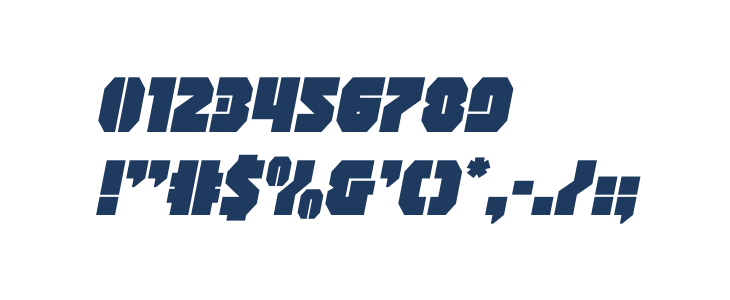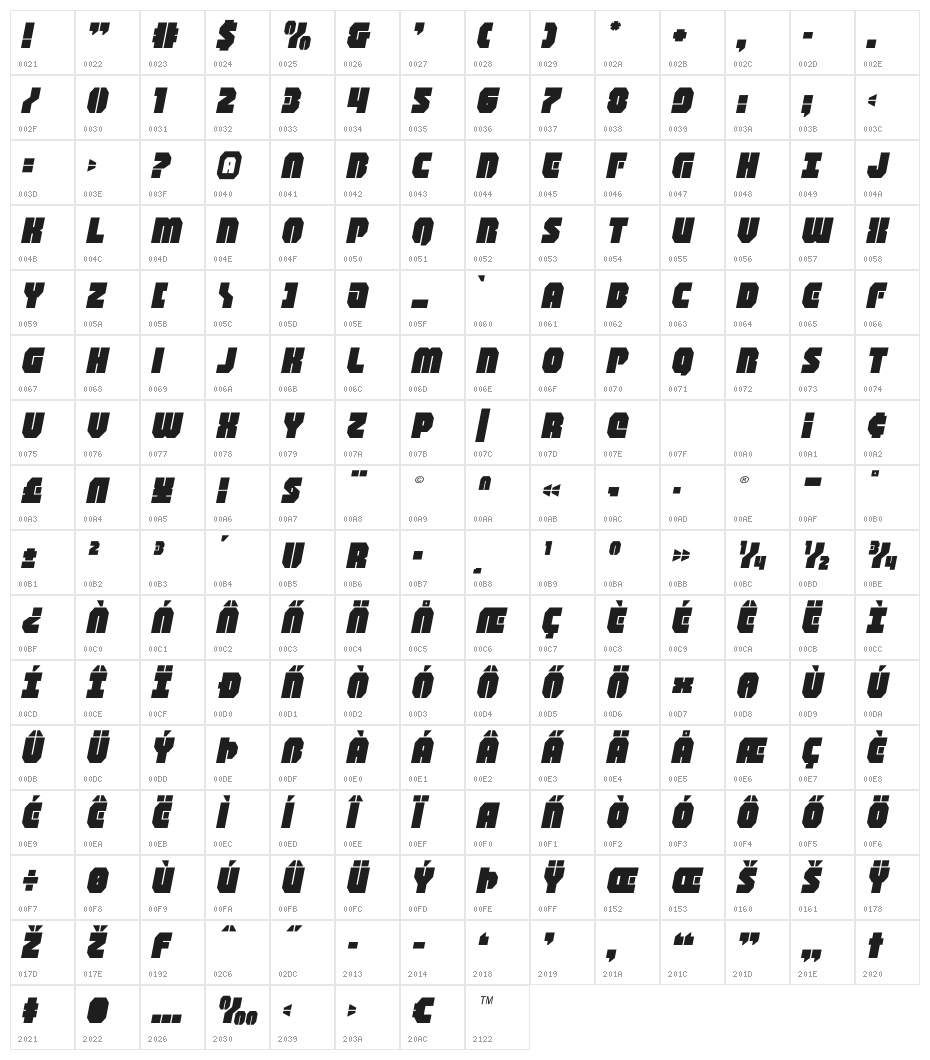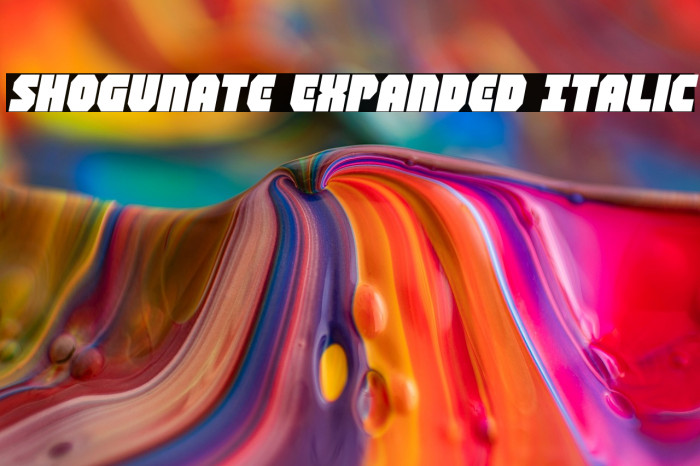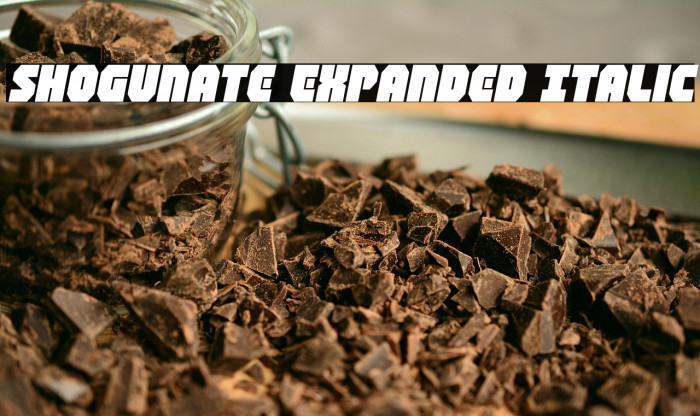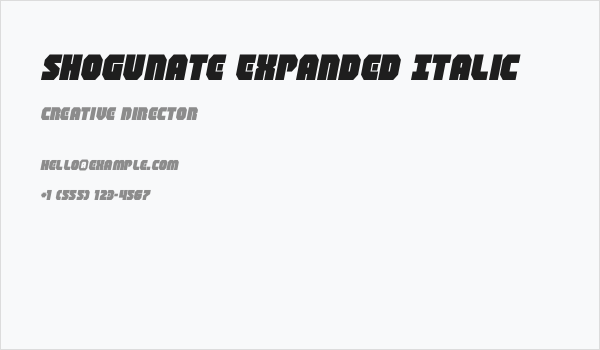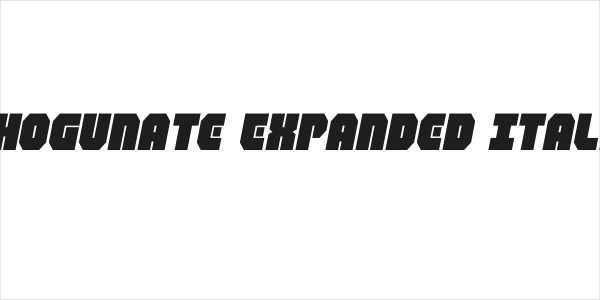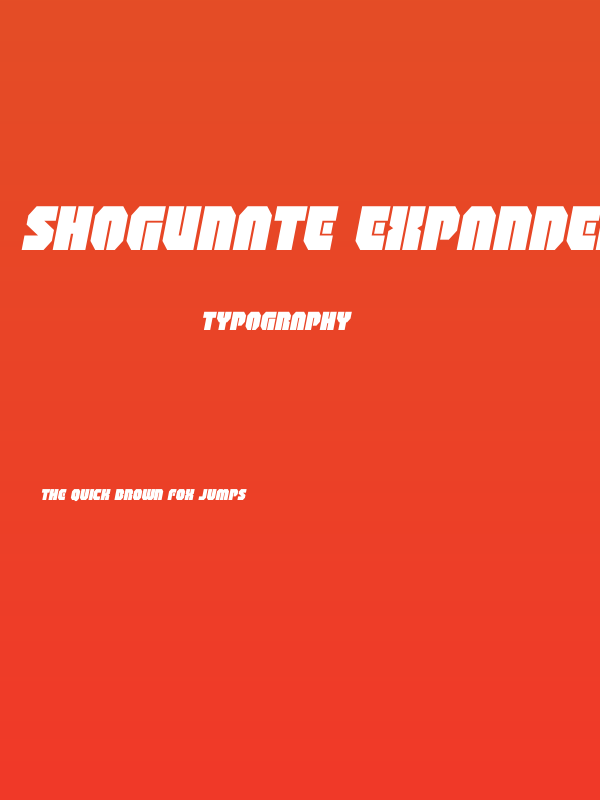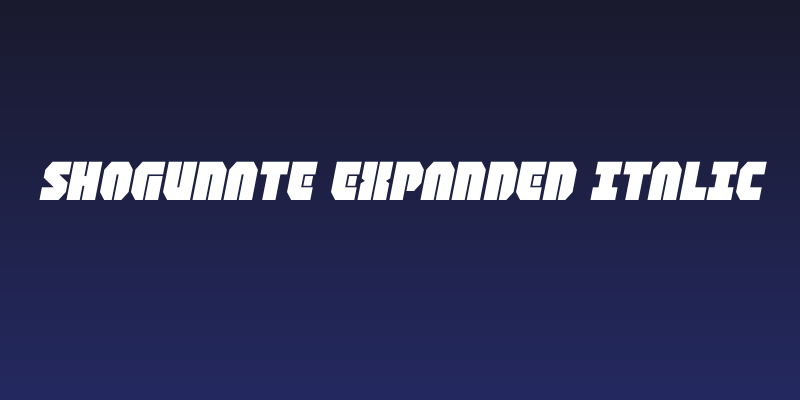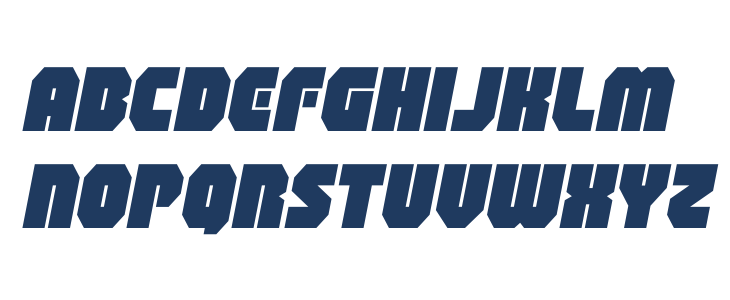
Shogunate Expanded Italic Font
Shogunate Expanded Italic Description
This font features a bold, geometric design with a distinct italic slant, giving it a dynamic and modern appearance. The characters are heavily stylized with sharp angles and thick strokes, creating a strong visual impact. The expanded width of the letters enhances its presence, making it suitable for attention-grabbing headlines or logos. The uppercase and lowercase letters maintain a consistent style, while the numerals and special characters complement the overall aesthetic. Its unique design makes it stand out in any project that requires a bold statement.
| Proposed Projects | Ideal for branding, posters, headlines, and any design needing a bold, modern touch. |